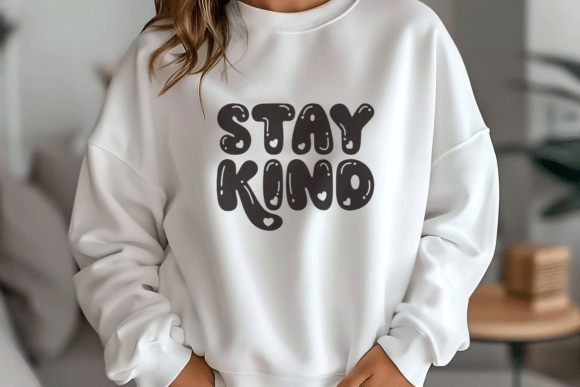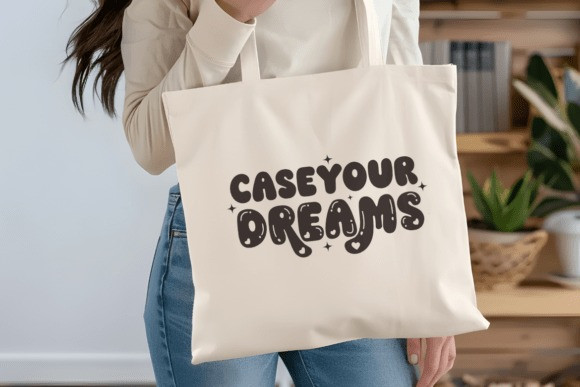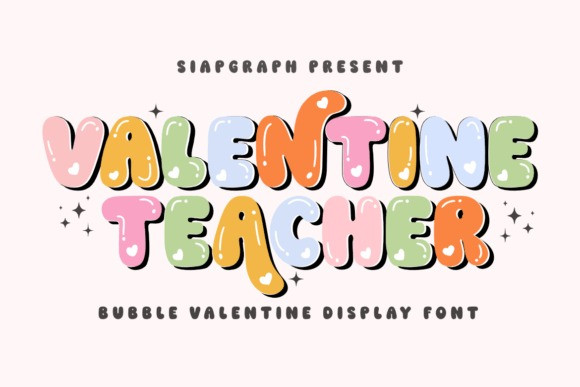
Valentine Teacher Font
Valentine Teacher Font a charming and cute bubble font that exudes playfulness!Its soft curves and bold appearance are perfect for creating eye-catching headlines, posters, social media graphics, and branding.
Add a dreamy touch to your designs with this delightful font, which is both fun and versatile.